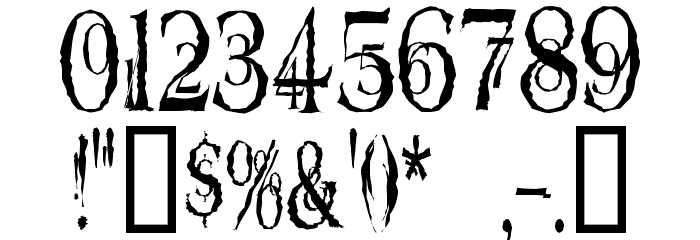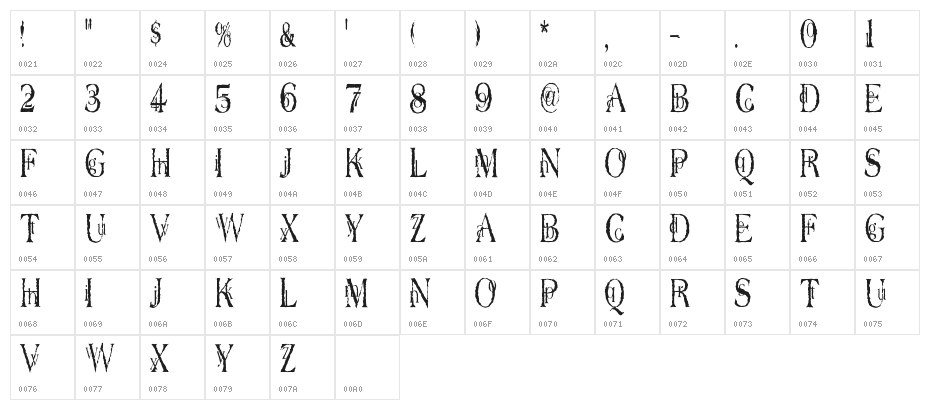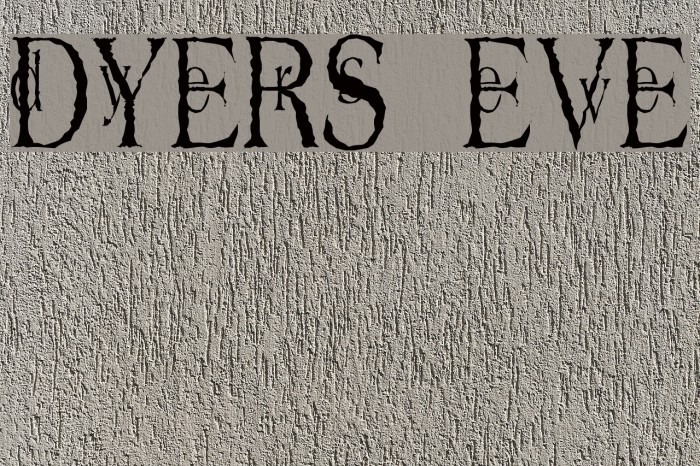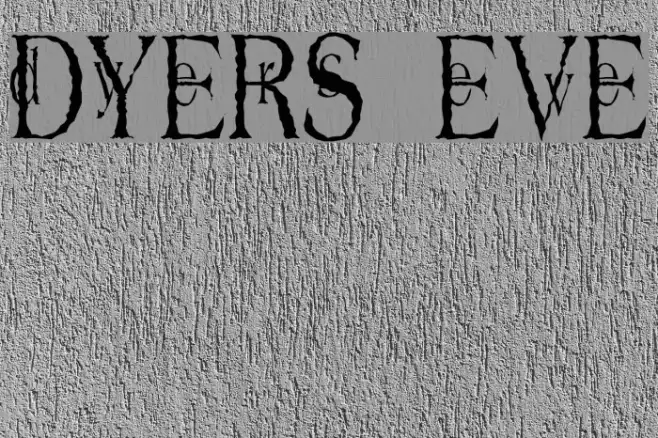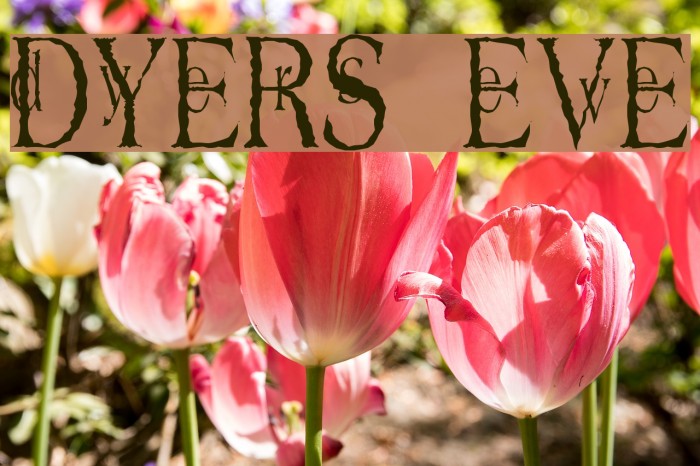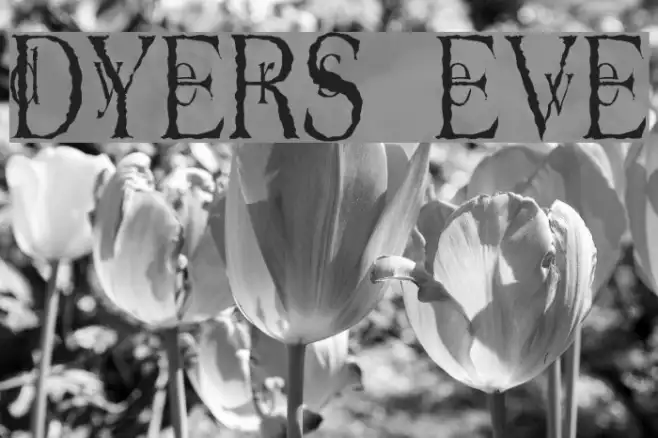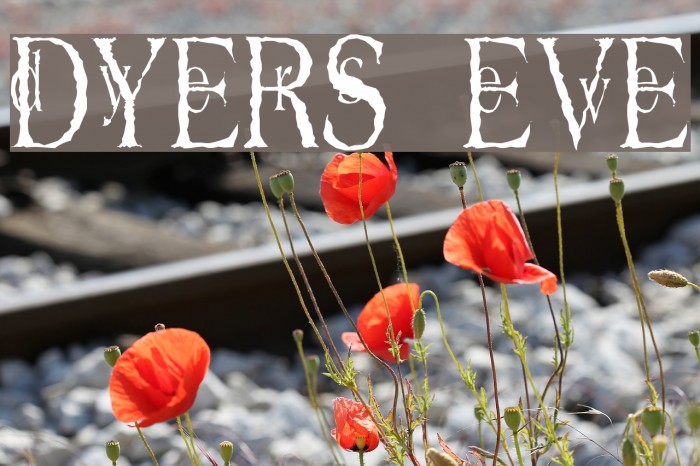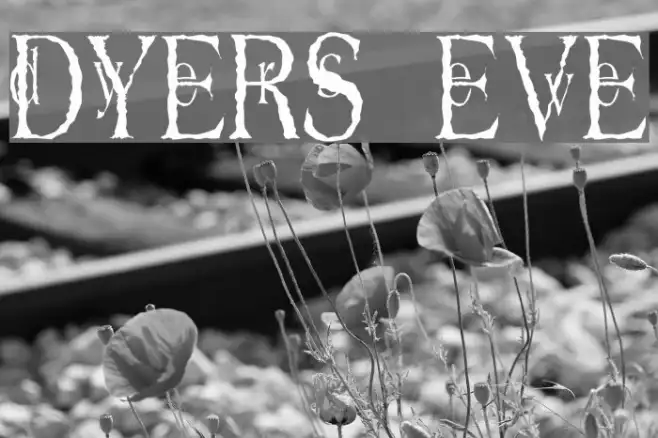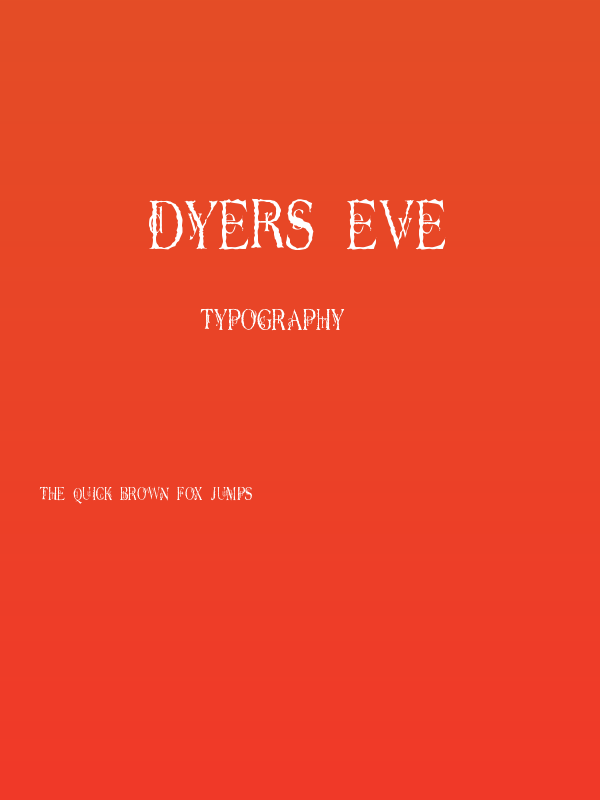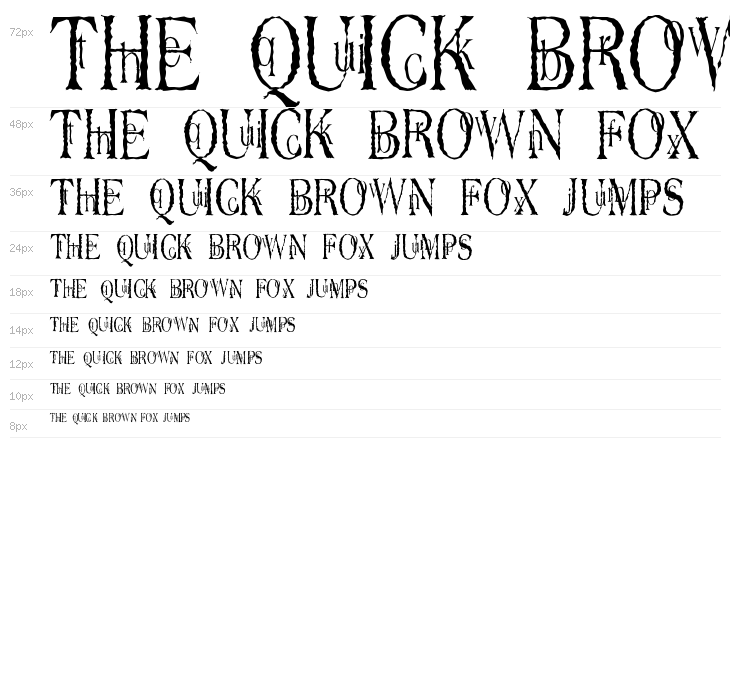
Dyers Eve Font
Dyers Eve Description
This font exhibits a distressed and grungy style, characterized by its jagged edges and uneven strokes, giving it a raw and edgy appearance. The uppercase and lowercase letters maintain a consistent height, while the numerals and special characters follow the same rugged aesthetic. The font's unique texture and irregularities make it stand out, providing a sense of movement and chaos. It is ideal for projects that require a bold statement or an alternative, rebellious vibe. The overall design is reminiscent of hand-drawn or graffiti-inspired artwork, making it suitable for creative and unconventional uses.
| Overall Style | Grunge, Alternative |
| Proposed Projects | Album covers, posters, street art, edgy branding, and alternative magazine layouts. |